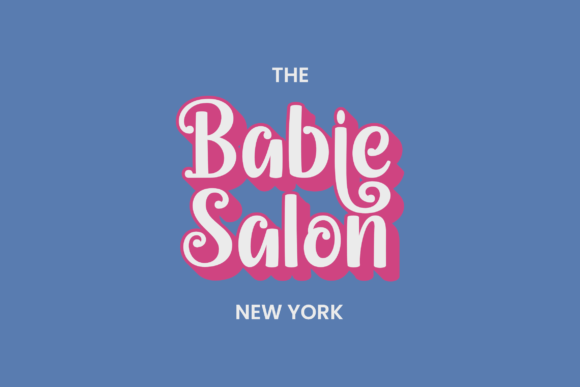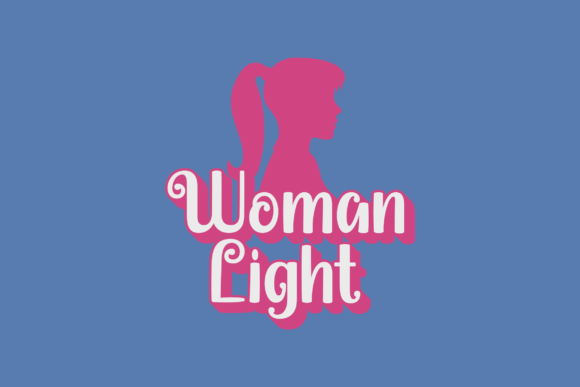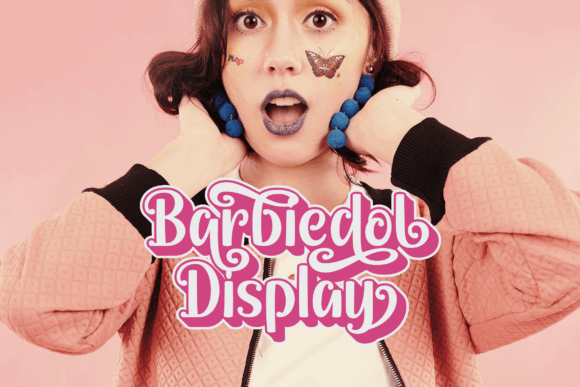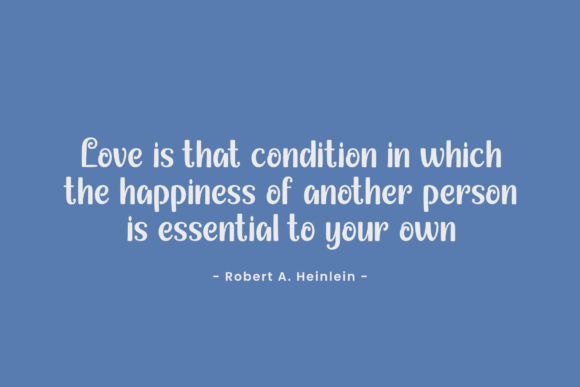
Barbiedol Display Font
Barbiedol Display is a display font inspired by the movie Barbie. This font is also made with a feminine feel. So this font is suitable for sweet and soft designs.
Barbiedol Display font can also be used for various designs such as wedding invitations, logos, headlines, posters, tshirt designs, tote bag designs and so on.